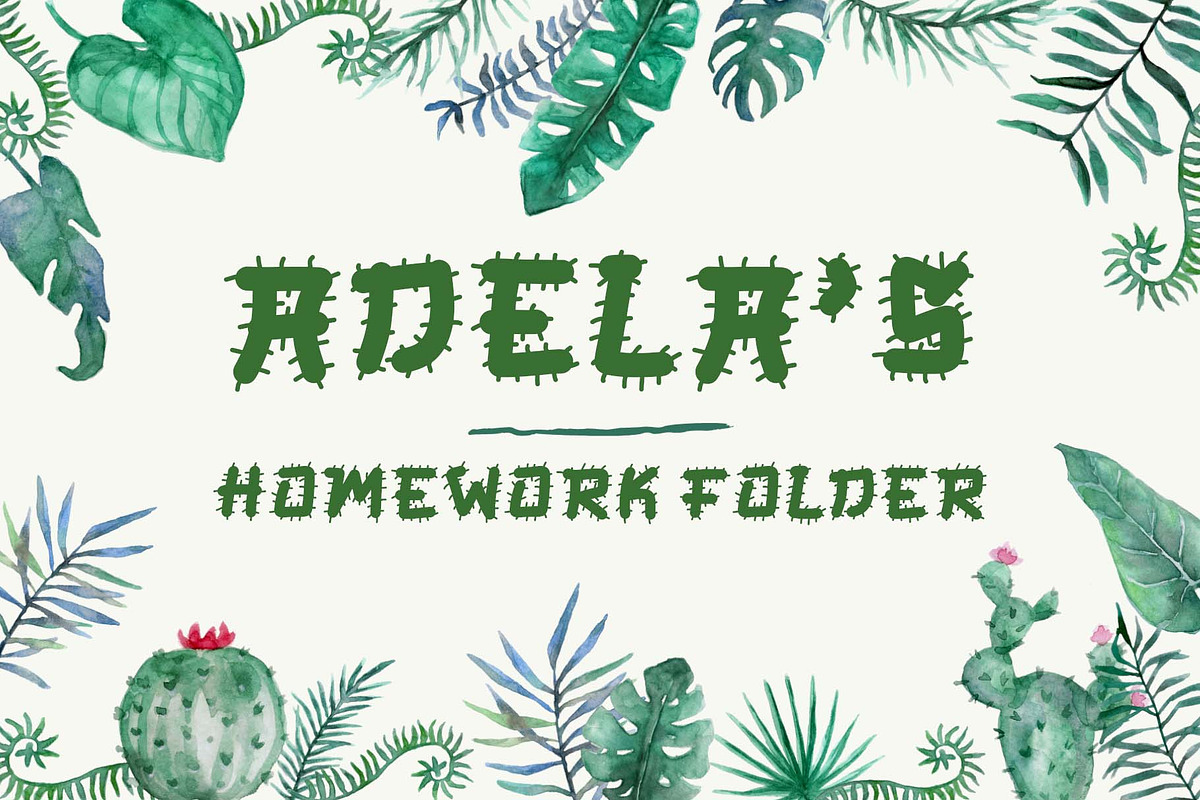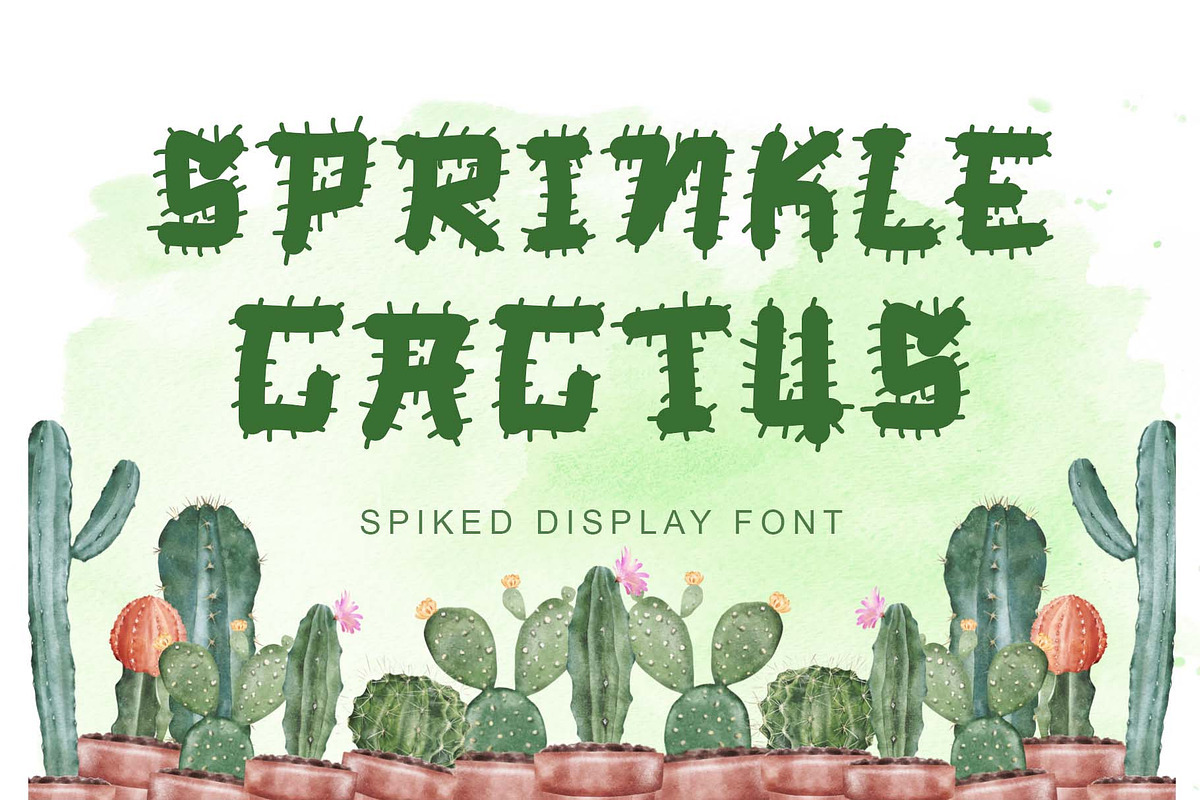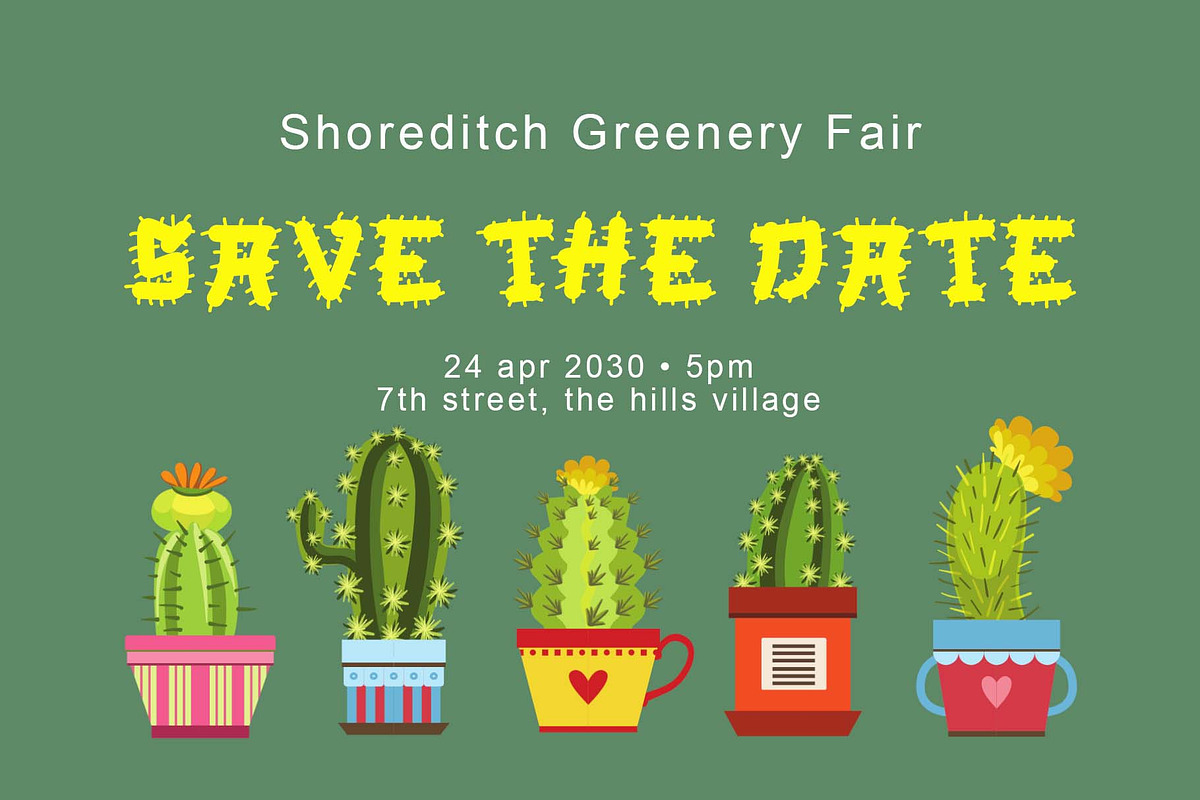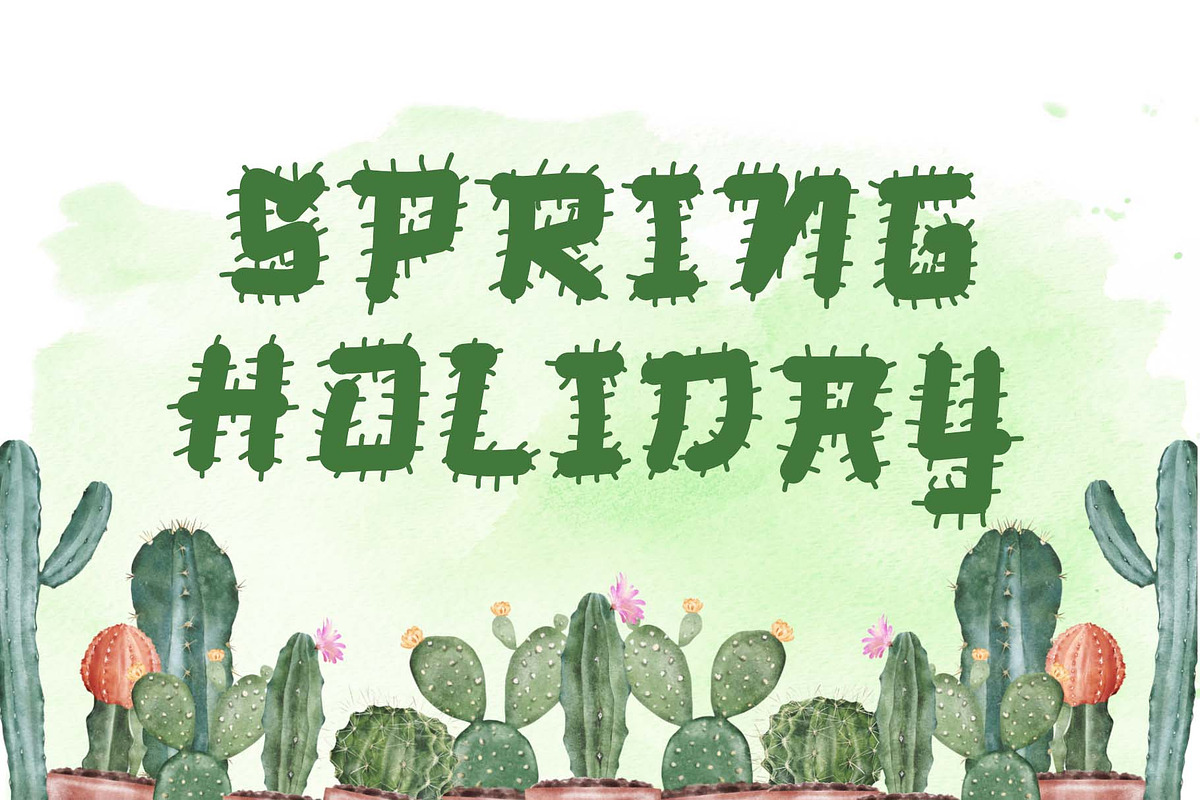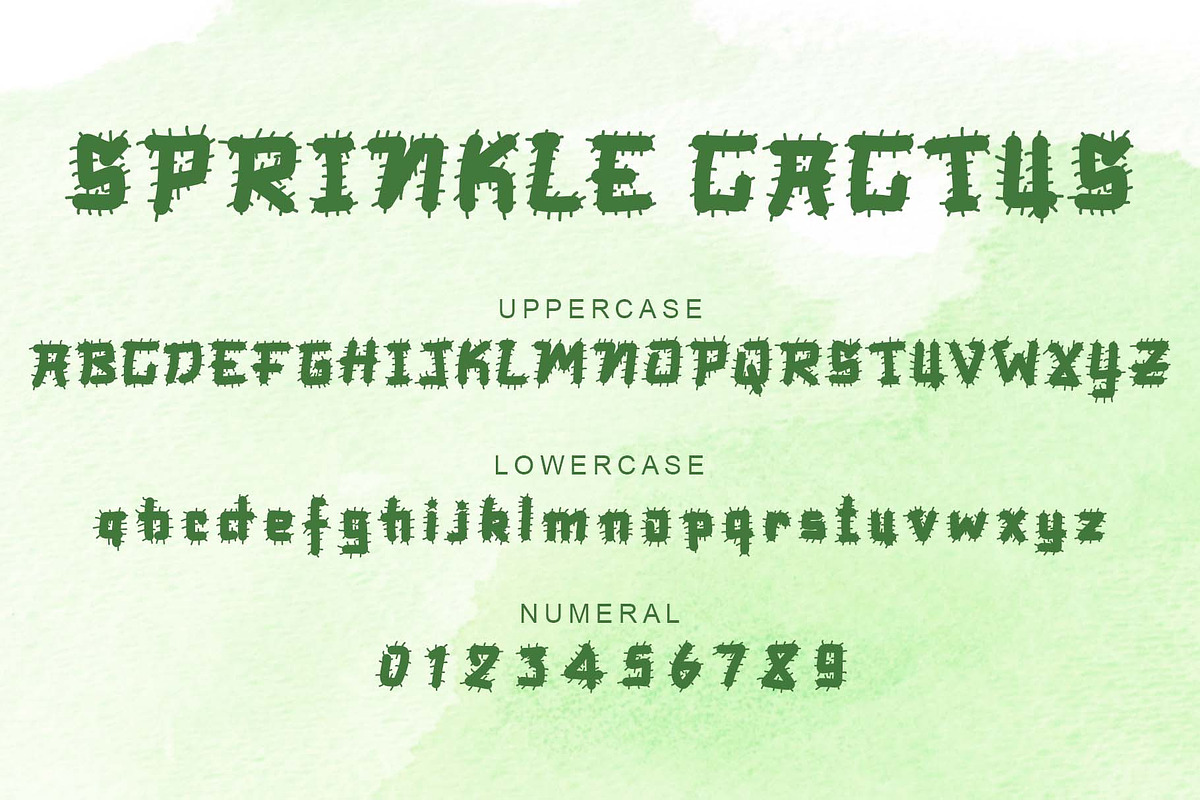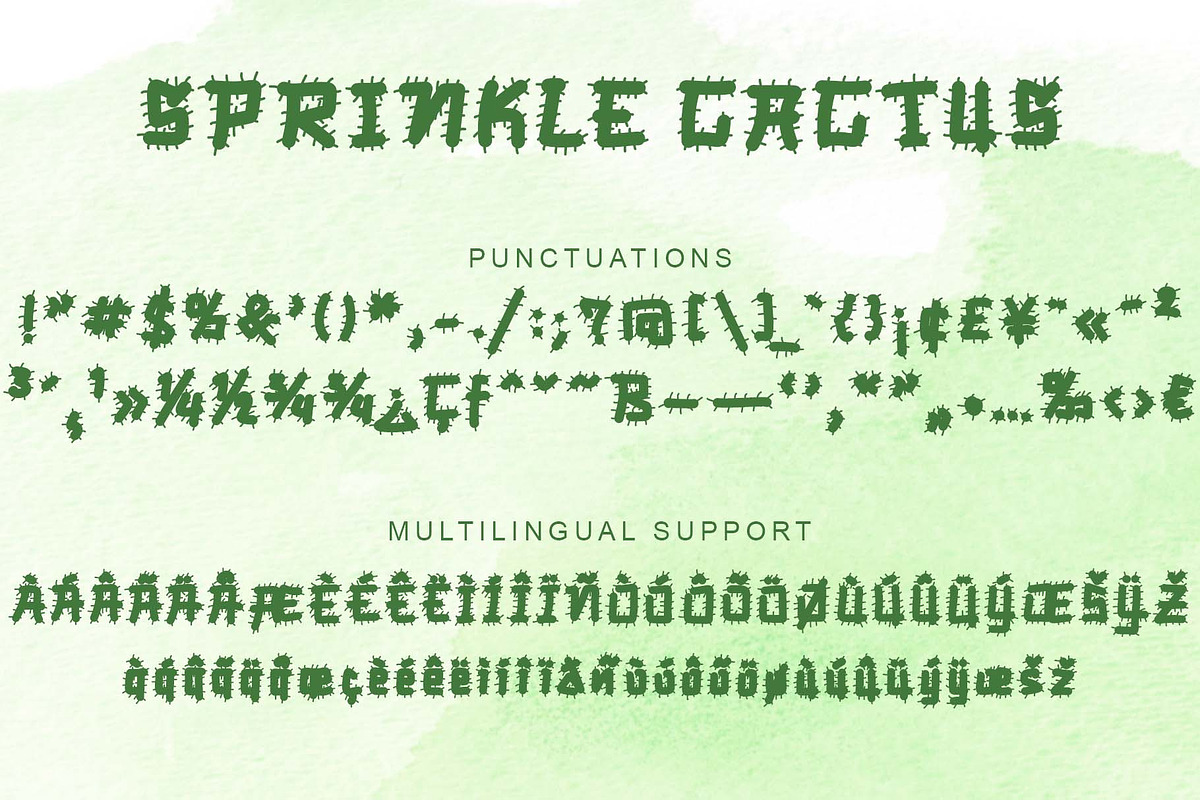
Sprinkle Cactus
"Sprinkle Cactus" is a very cute spiky display font. This font is equipped with uppercase, lowercase, numerals, punctuations and multilingual support. Very suitable for comics, cartoons, book titles, posters, prints, banners, branding, stickers, logos, branding, mockups and others.